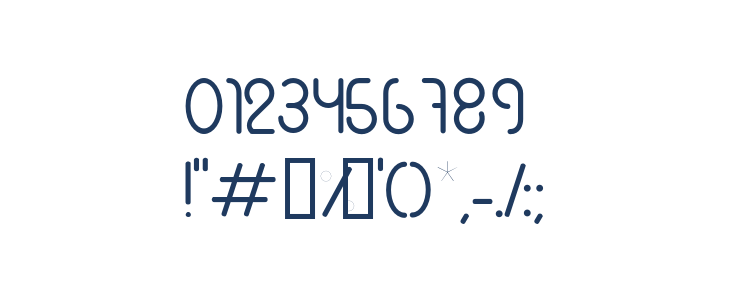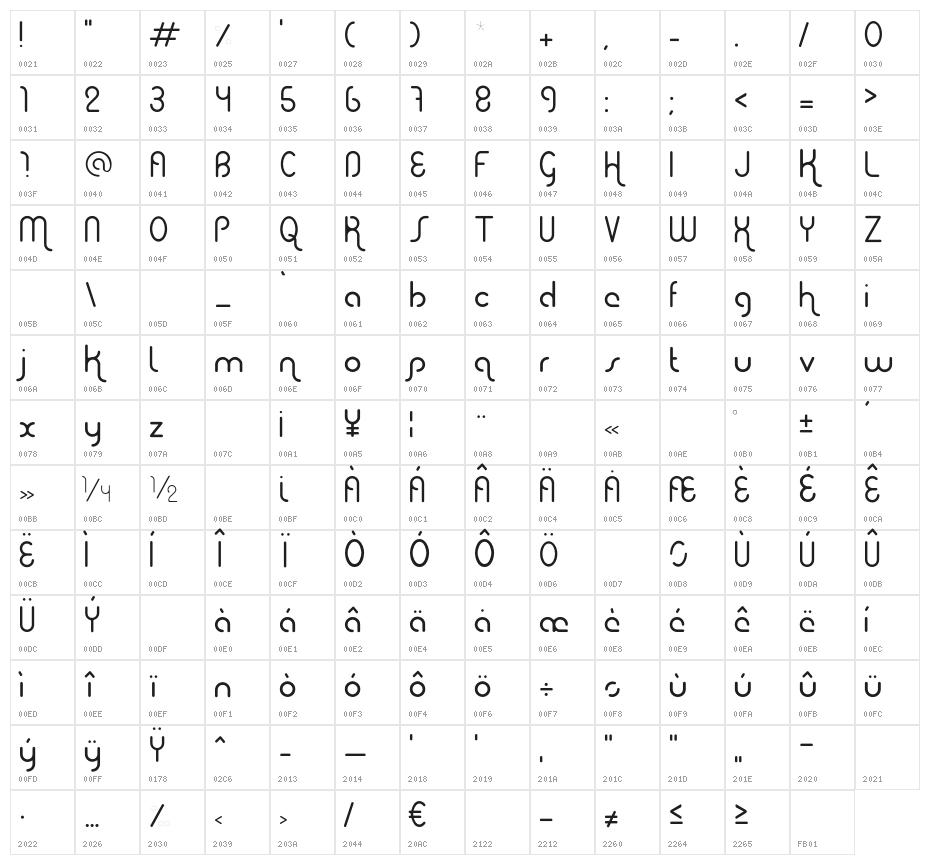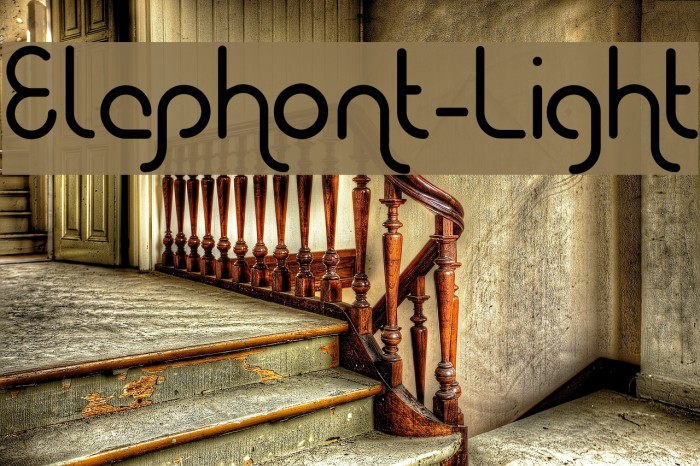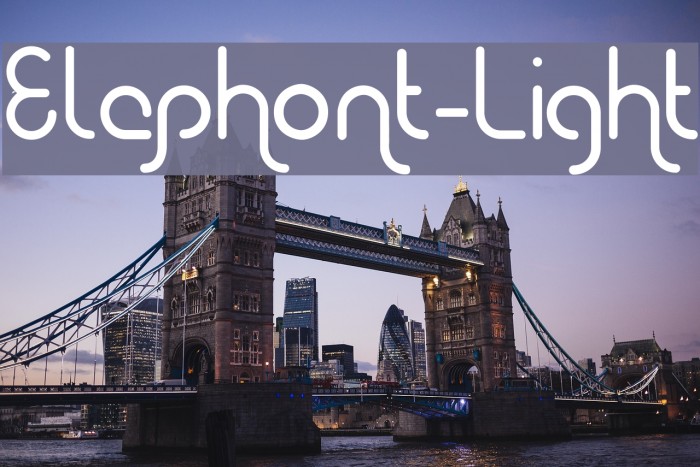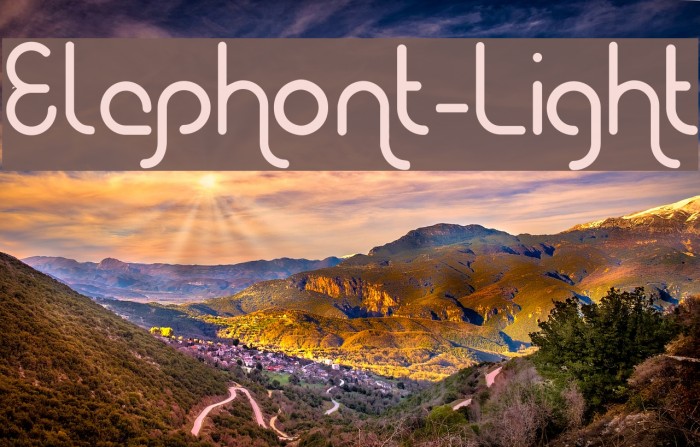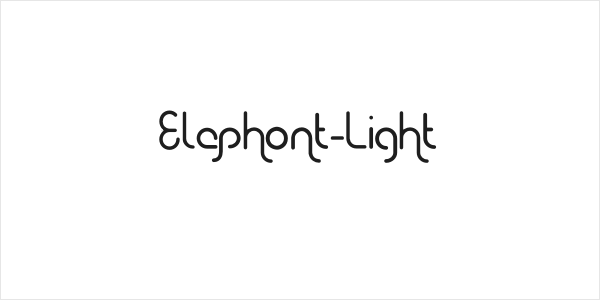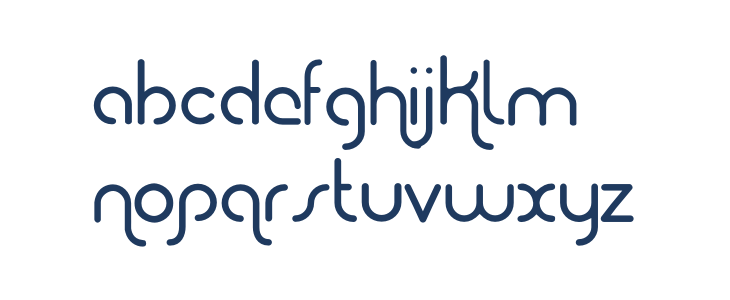
Elephont-Light Font
Elephont-Light Description
This font features a unique and modern design with rounded edges and a clean, streamlined appearance. The characters are constructed with a consistent stroke width, giving it a cohesive and harmonious look. The uppercase letters have a distinct geometric style, while the lowercase letters maintain a playful yet sophisticated feel. The numerals are clear and easy to read, complementing the overall aesthetic. Special characters are thoughtfully designed to match the font's overall style, making it versatile for various applications.
| Use Case | Headlines, Logos, Digital media |
| Proposed Projects | Ideal for branding, advertising, and digital media projects where a modern and approachable look is desired. |